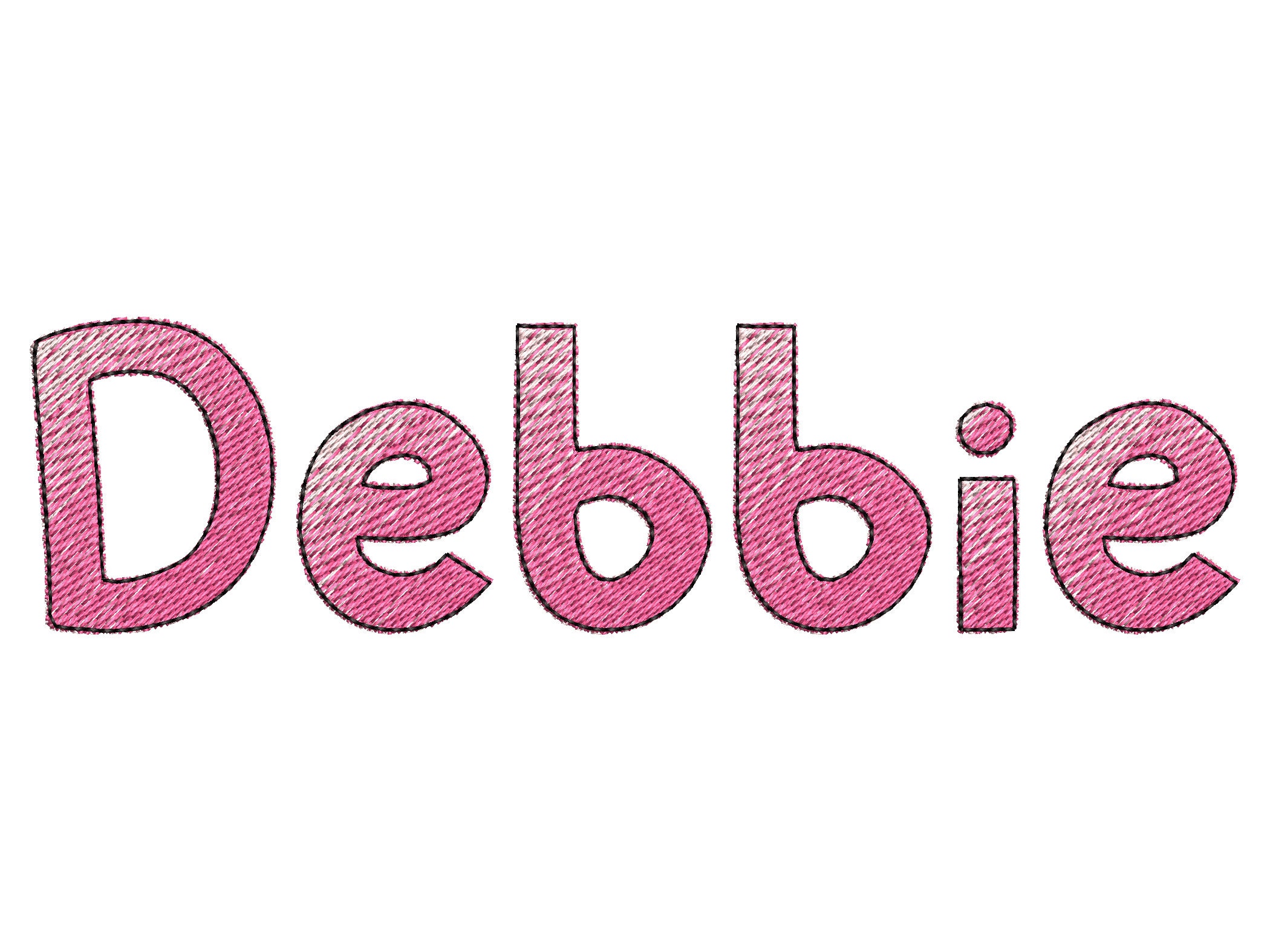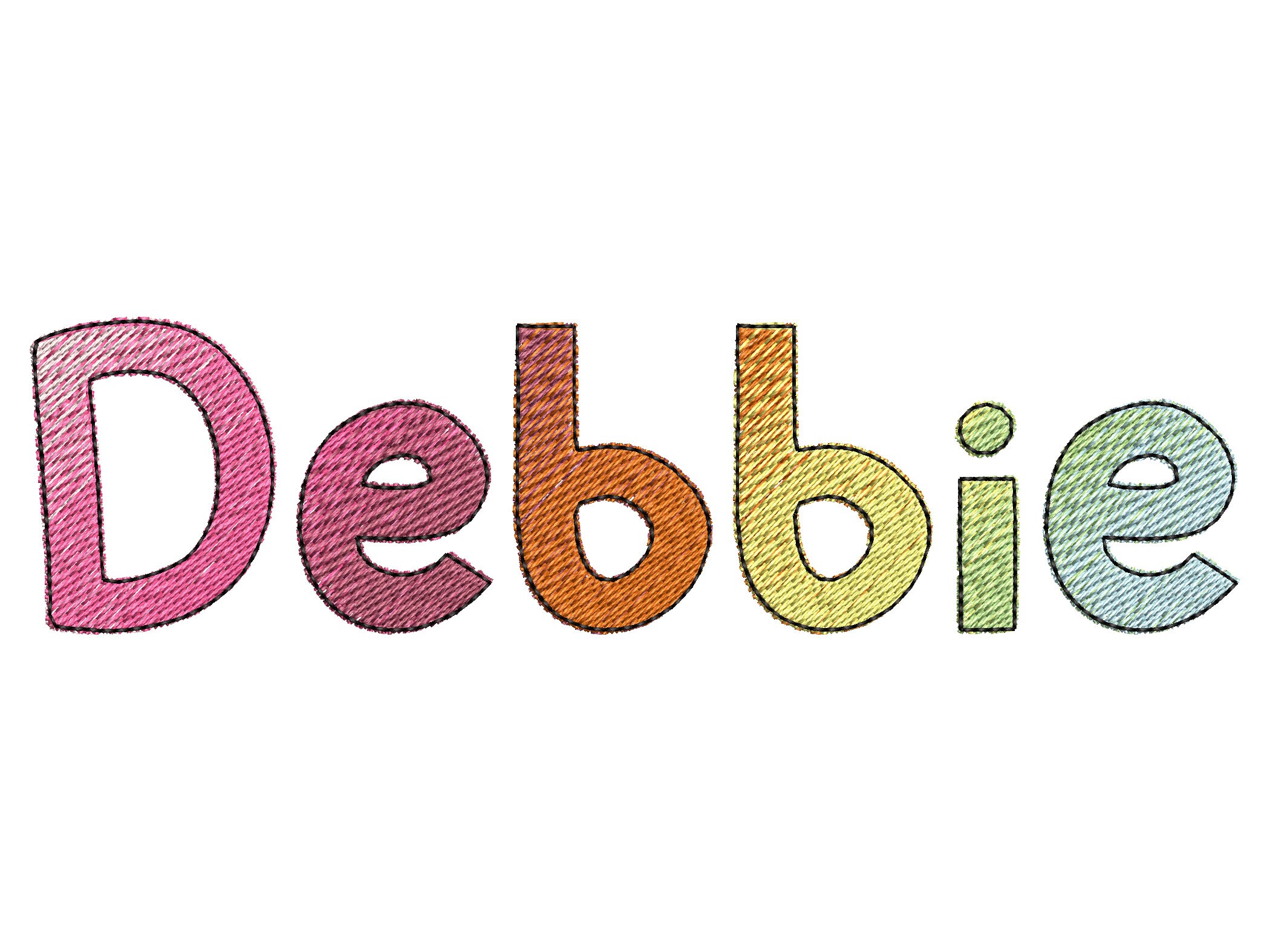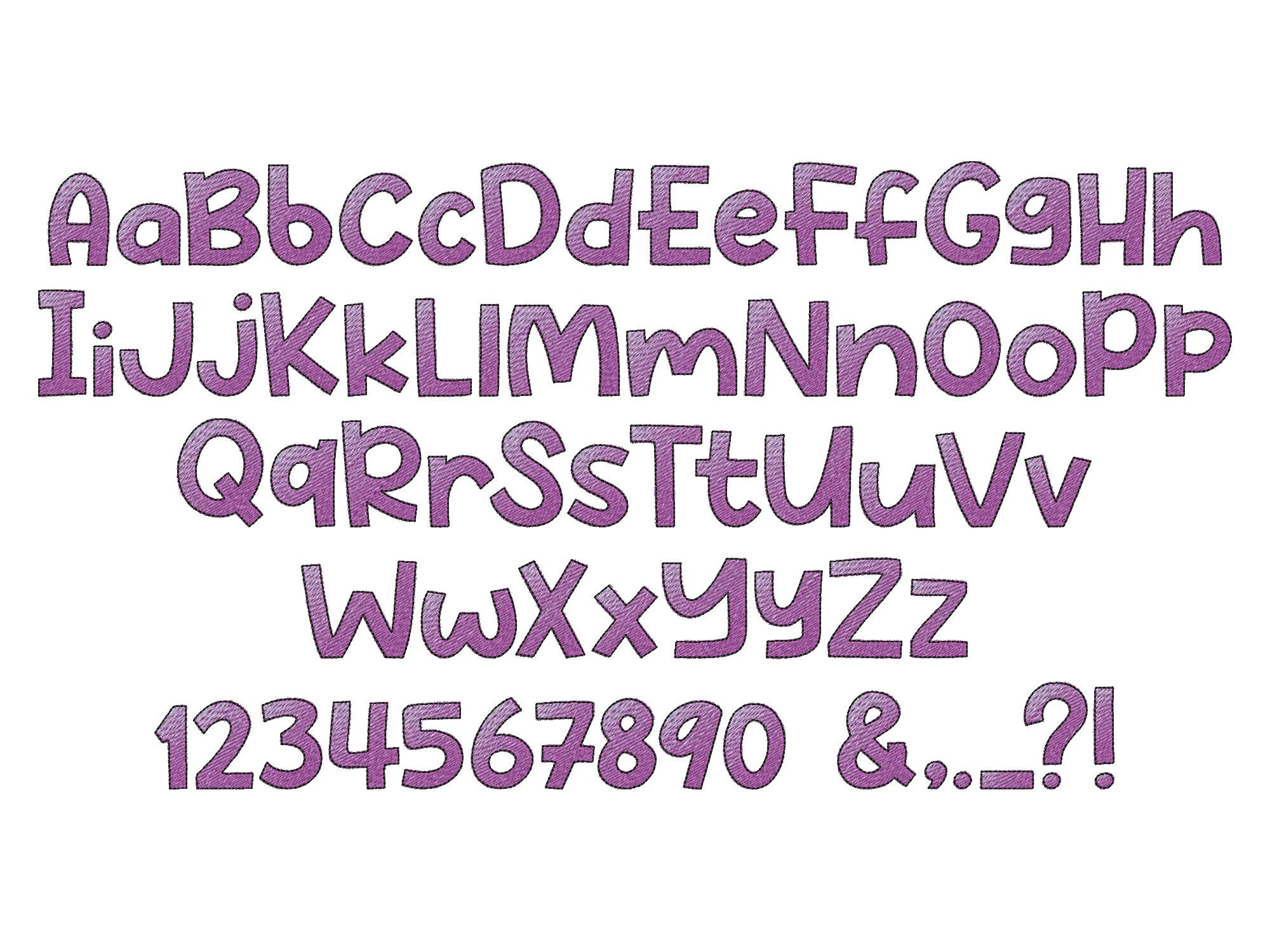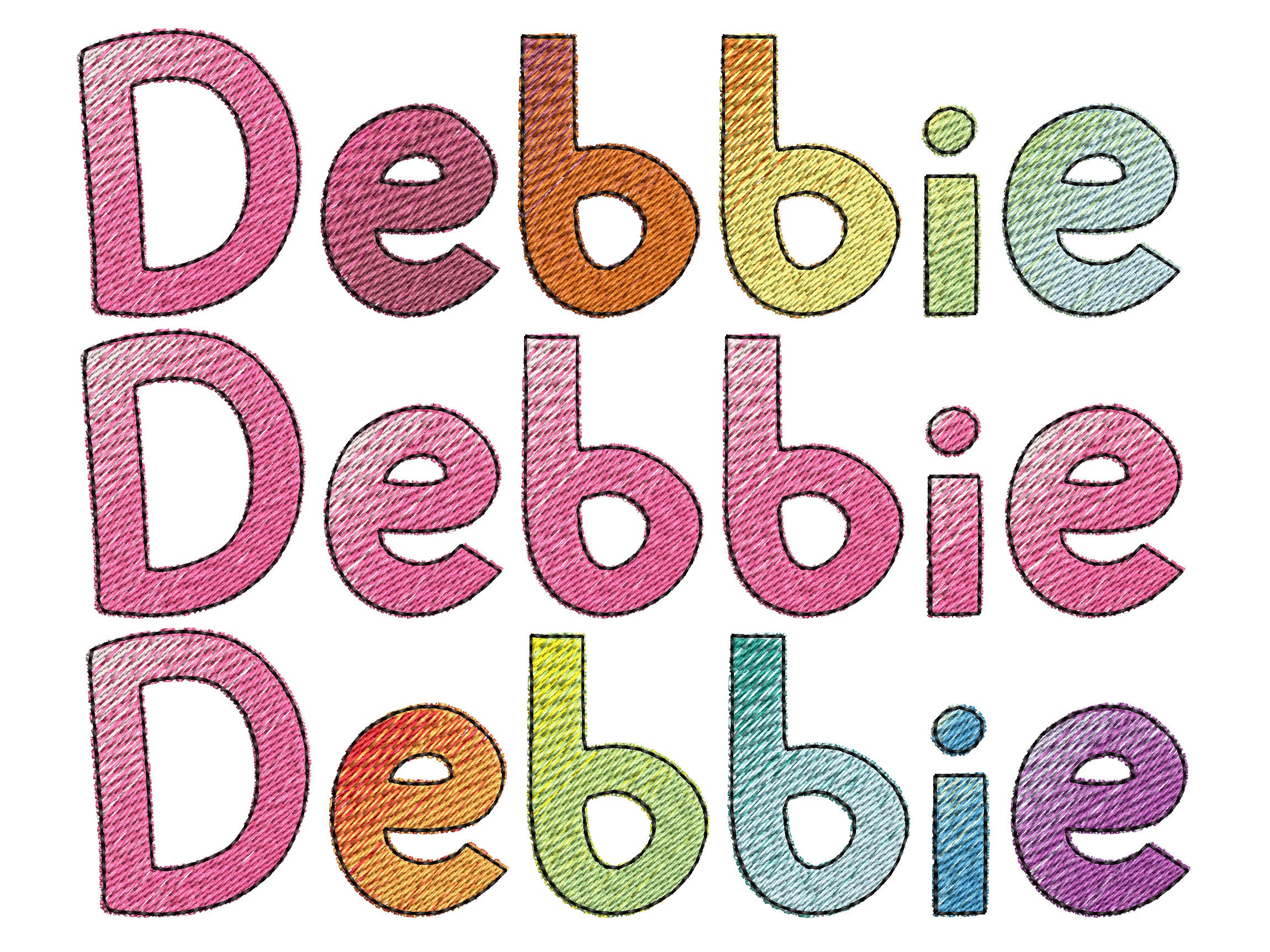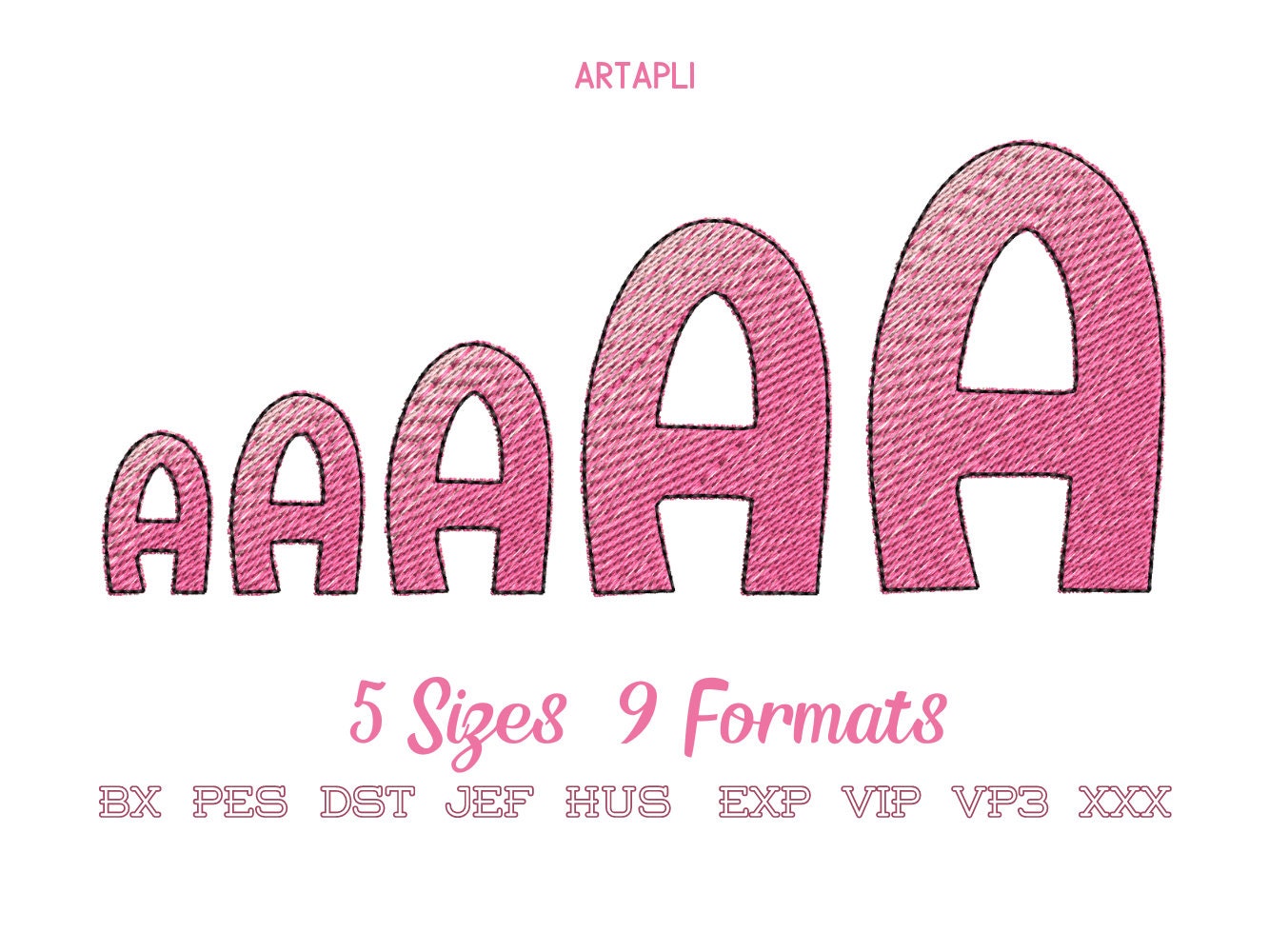
No special thread is required!
It looks incredible! For this font, regular solid color threads are used (not multi-colored).
The letters are stitched using usual solid color embroidery threads, just used two colors per letter to make a nice iridescent effect!
The pattern creates this amazing effect all by itself. Iridescent comes thanks to the design, every letter has 2 colors. The letter starts stitching with one color, then change the thread and stitches with the second color.
You may play with the colors as you like.
Included: numbers, lowercase and uppercase letters, punctuation